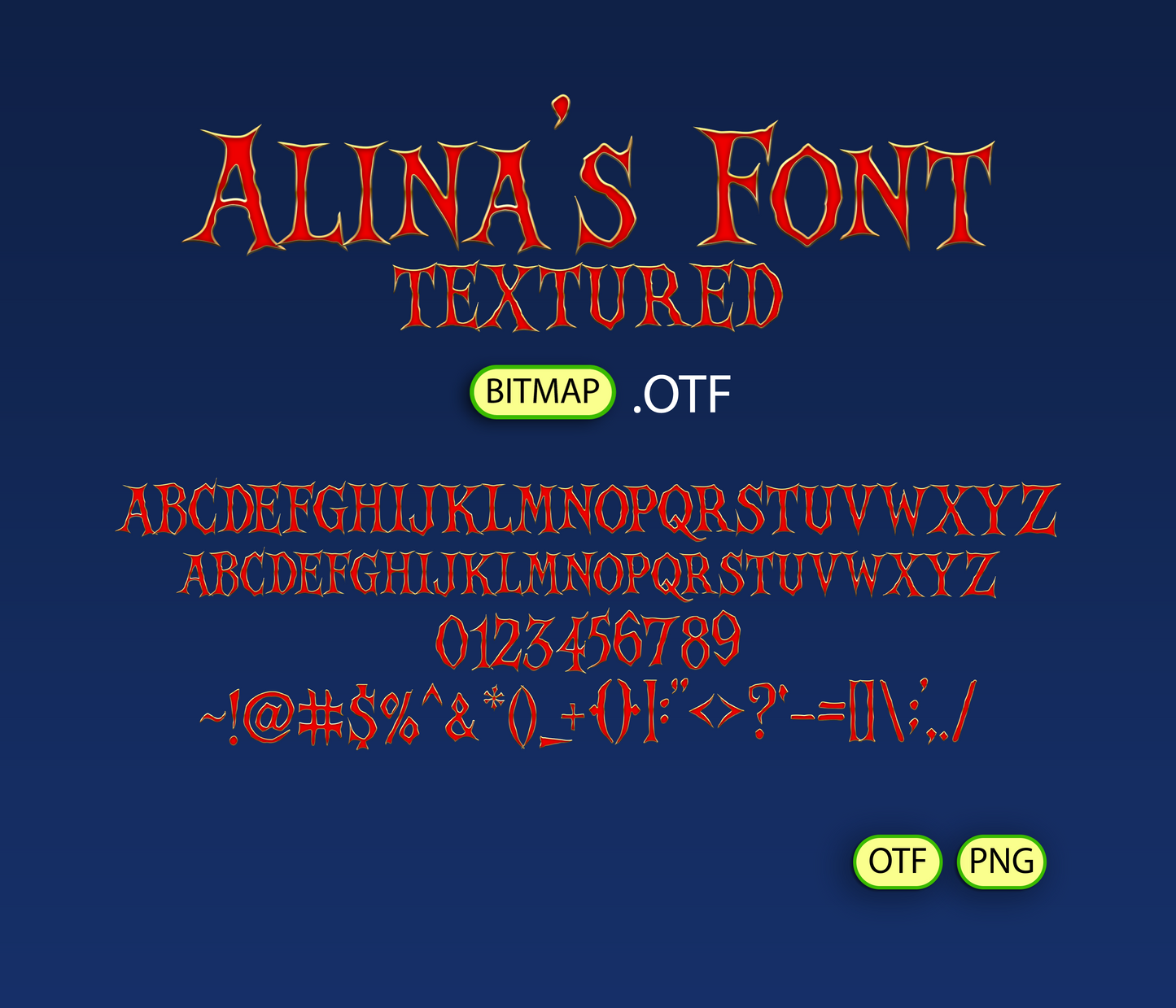
Gothic Red Font Textured
Step into the dark and dramatic world of Gothic typography with our Gothic Red font, capturing the essence of haunting elegance and mysterious allure. Perfect for horror enthusiasts, gothic creators, event organizers, and designers, this font brings the dynamic, crimson spirit of gothic aesthetics to your projects. Create atmospheric materials, merchandise, or digital content with the blood-red energy of this classic dark style.
Our Gothic Red font features sharp, ominous lines and blood-tinted characters reflecting the world of gothic aesthetics. Ideal for:
- Event Promotions: Create haunting invites, posters, and banners for horror screenings, gothic conventions, and themed parties that capture the spirit of macabre elegance
- Merchandise Design: Perfect for t-shirts, posters, and accessories that showcase the dark aesthetic of gothic culture
- Digital Media: Enhance websites, blogs, and social media with dramatic headers and graphics that express the power of gothic atmosphere
- Horror Content: Add authentic flair to fan art, gothic projects, and creative designs inspired by dark literature and imagery
- Personal Projects: Bring haunting elegance to scrapbooking, DIY crafts, and home decor inspired by the world of gothic aesthetics
Our font pays tribute to the iconic world of gothic aesthetics, empowering your designs with its dark and dramatic spirit. Whether crafting promotional materials, designing merchandise, or adding a dynamic touch to personal projects, this font communicates the bold essence of gothic style. Ready to inject dark elegance into your creations? This font is your key to exciting, impactful design.